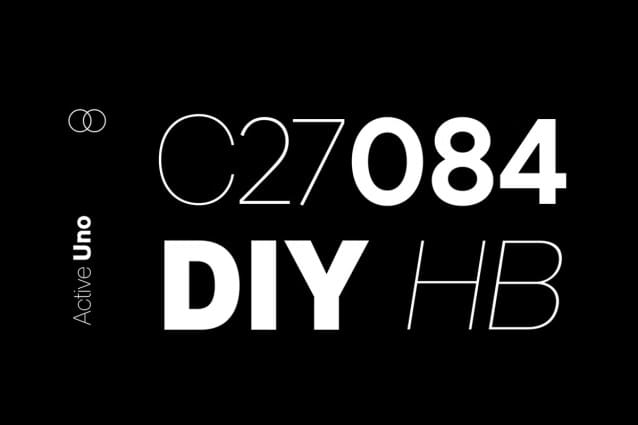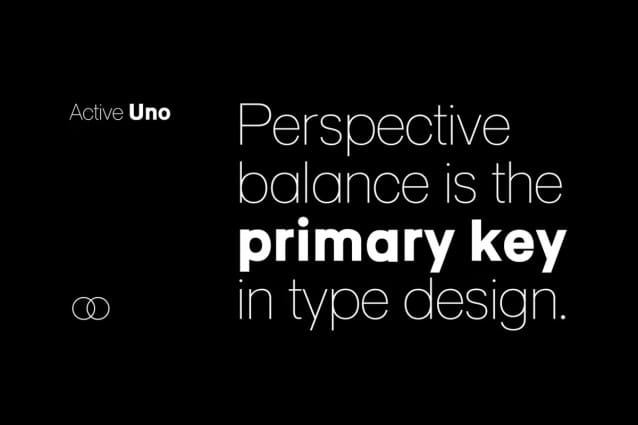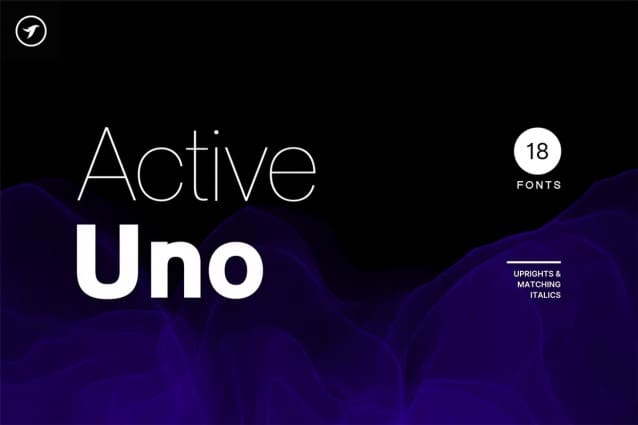
Active Uno Font Family
Active Uno Font Family, is the epitome of modernity and timelessness in the world of font families. With its clean and well-balanced design, and an extensive collection of 18 fonts in the family, this typeface is sure to inspire you to create something truly remarkable.
Active Uno is the third typeface from our Uno class font families, which is one of the most advanced and feature-loaded fonts in our portfolio. So, go ahead, and use Active Uno to bring your design ideas to life.
The Active Uno font family is a versatile choice for creating a wide range of designs and textual representations. It’s perfect for logos, branding, headlines, corporate identities, and marketing materials for both digital and print platforms.
This typeface is an excellent choice for branding, logo and logotype designs, marketing graphics, banners, posters, signage, corporate identities, and editorial design projects. By adding extra letter spacing, it becomes a perfect font for minimalist headlines and logotypes, as demonstrated in the attached promotional designs.